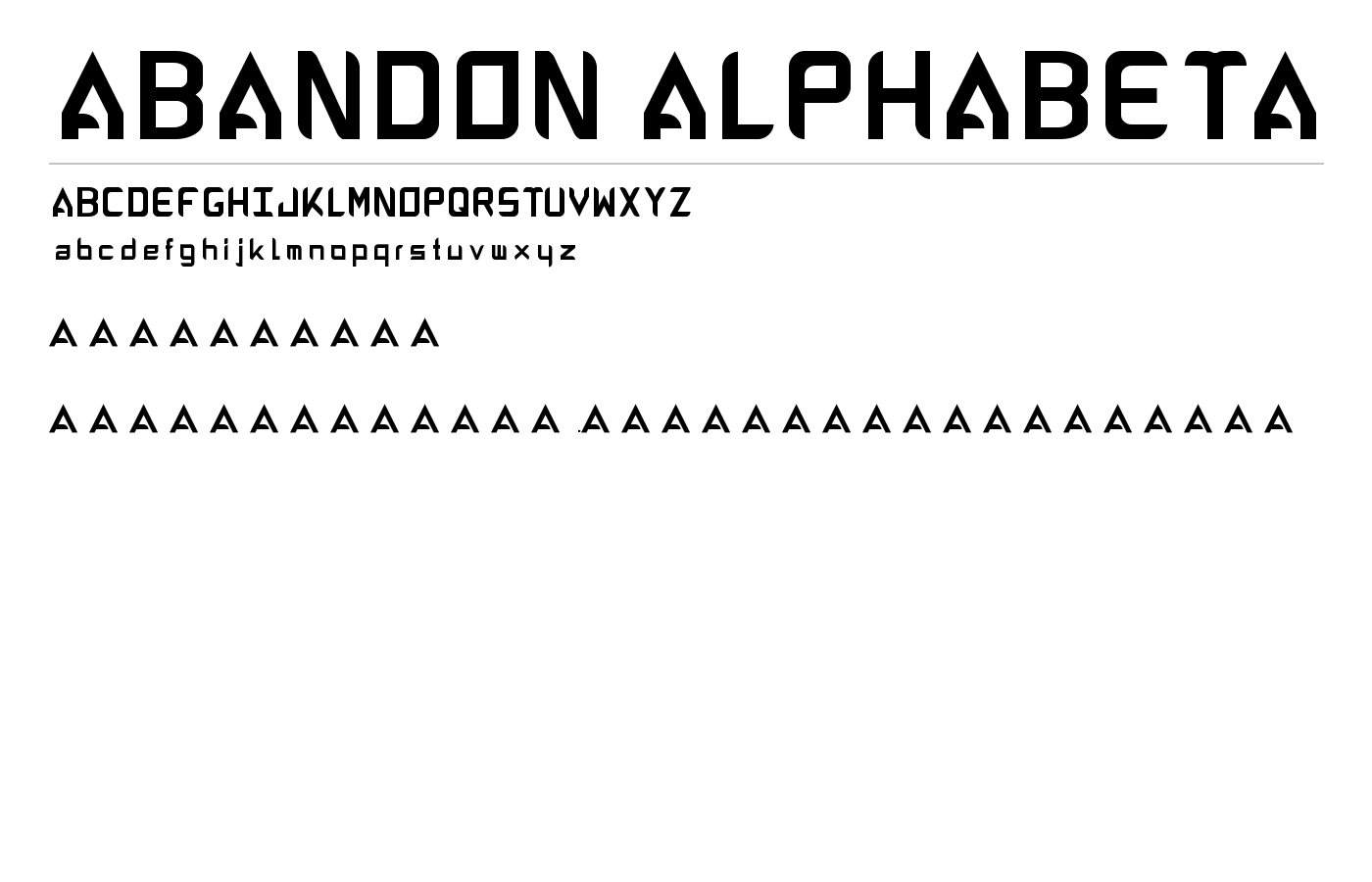
Abandon Alphabeta is a bold, geometric sans serif font with a distinct futuristic and avant-garde style. Its sharp angles, modular shape, and unique letterforms give it a modern, tech-inspired feel that works well for logos, headlines, and branding projects seeking a strong, edgy personality. This font is ideal for creative industries, game design, and technology brands looking to make a bold, memorable statement.
ABANDON ALPHABETA Font
About ABANDON ALPHABETA Font